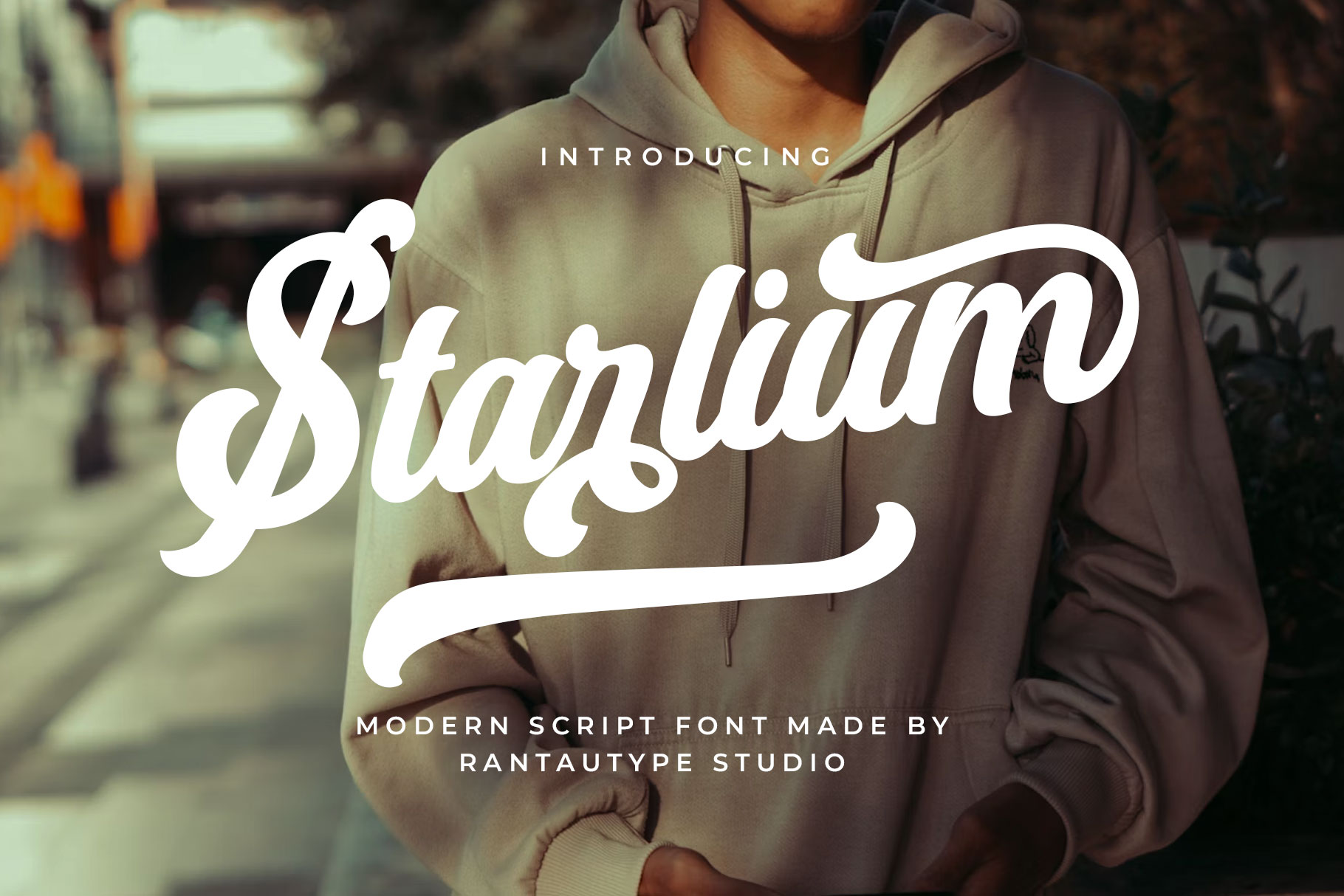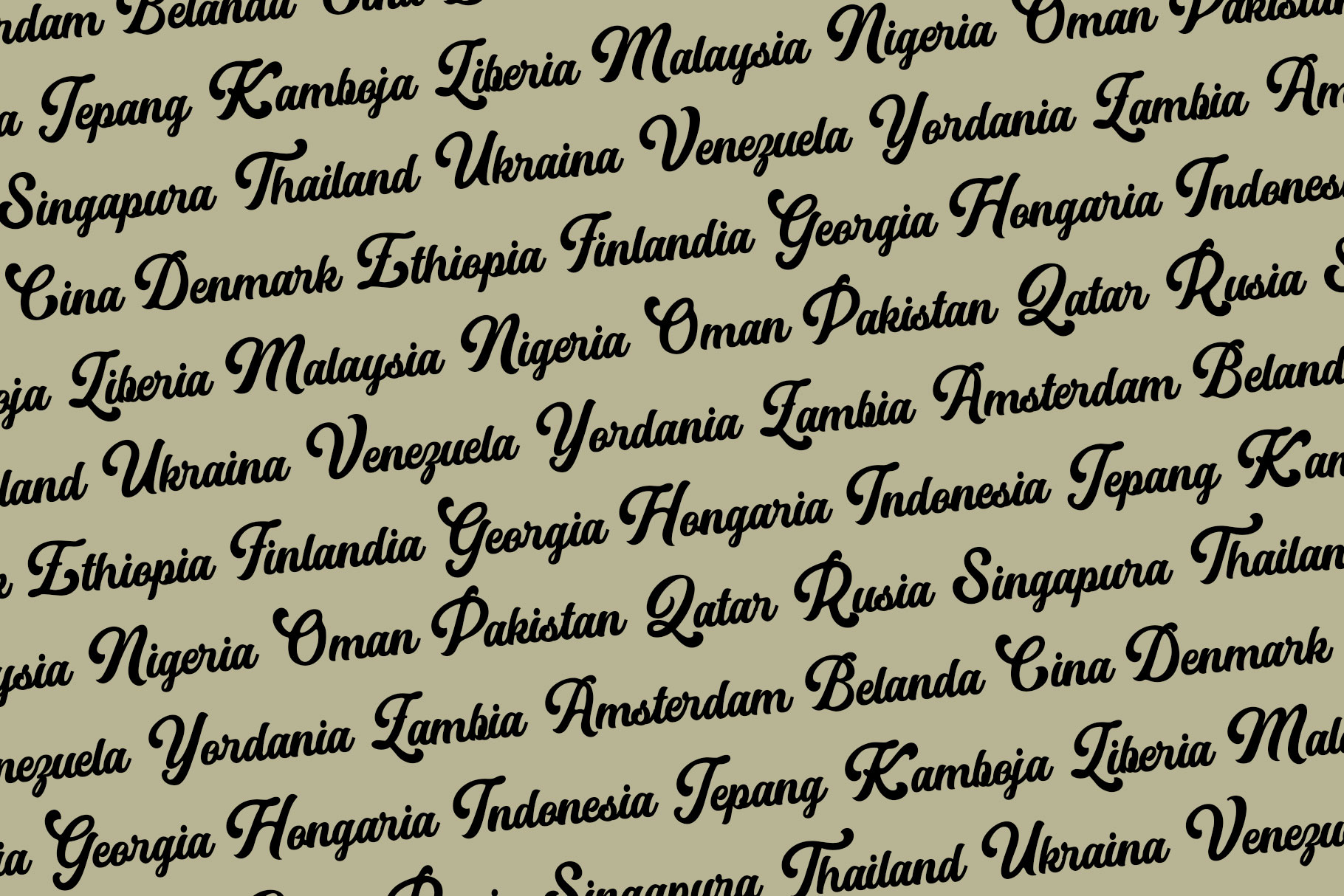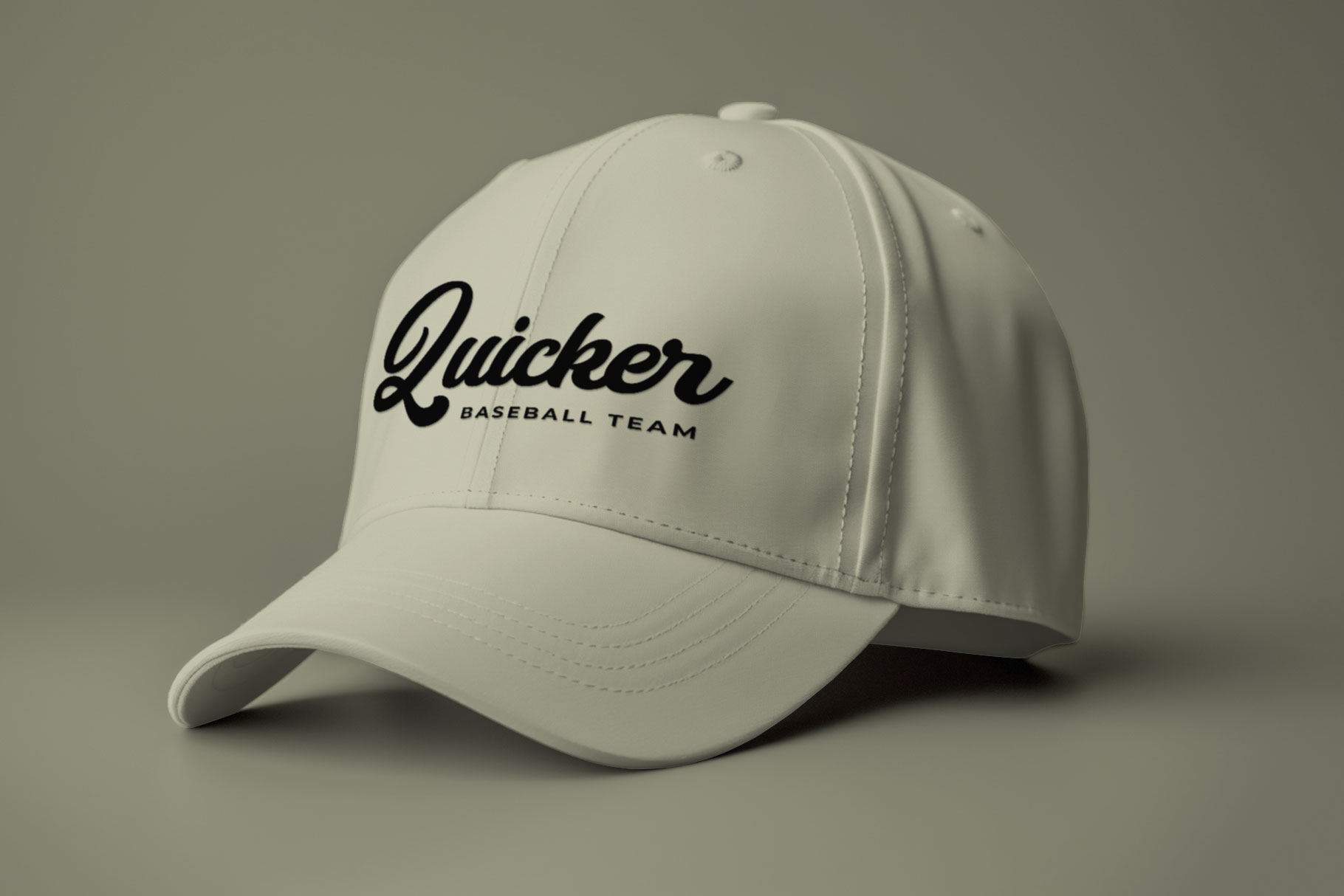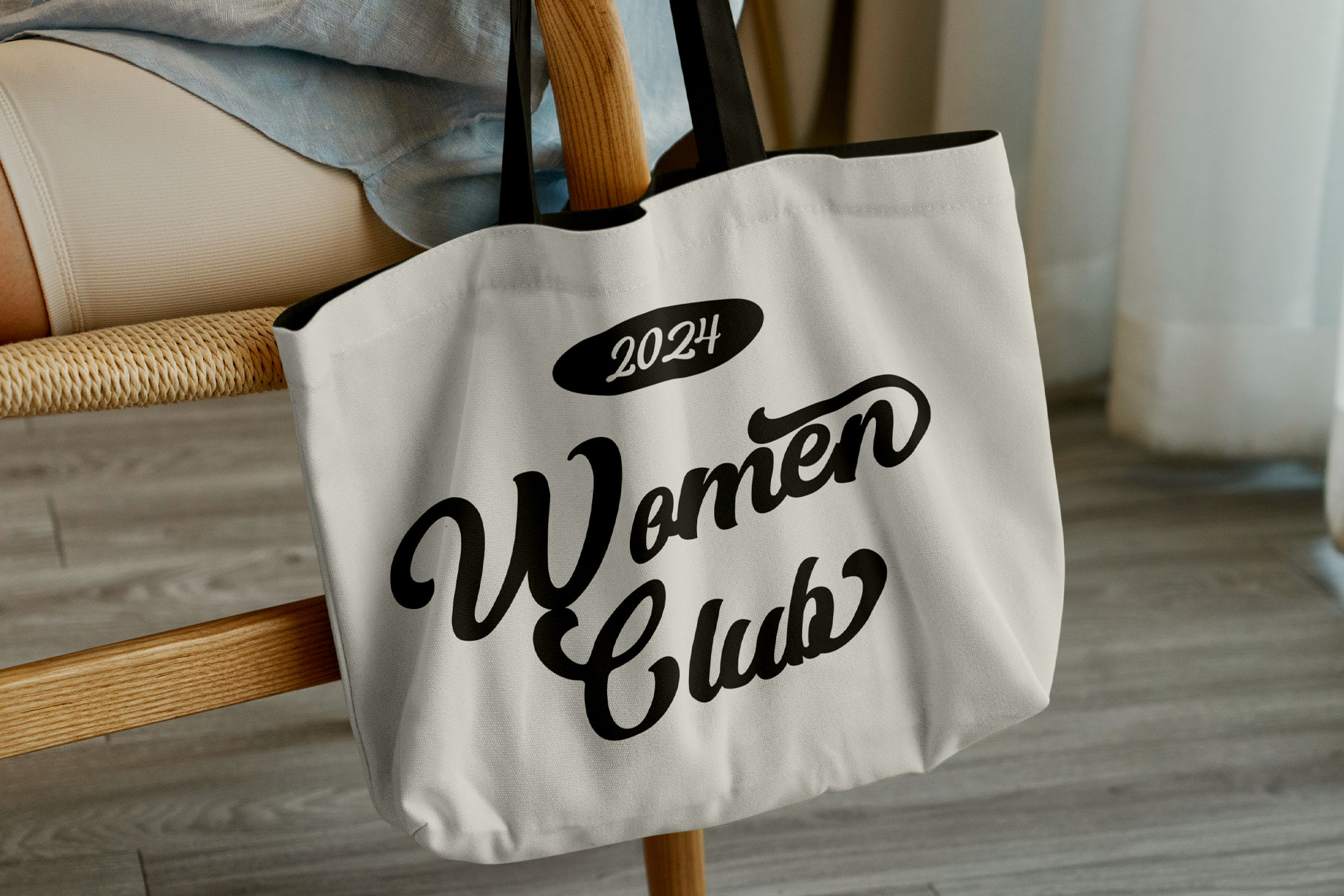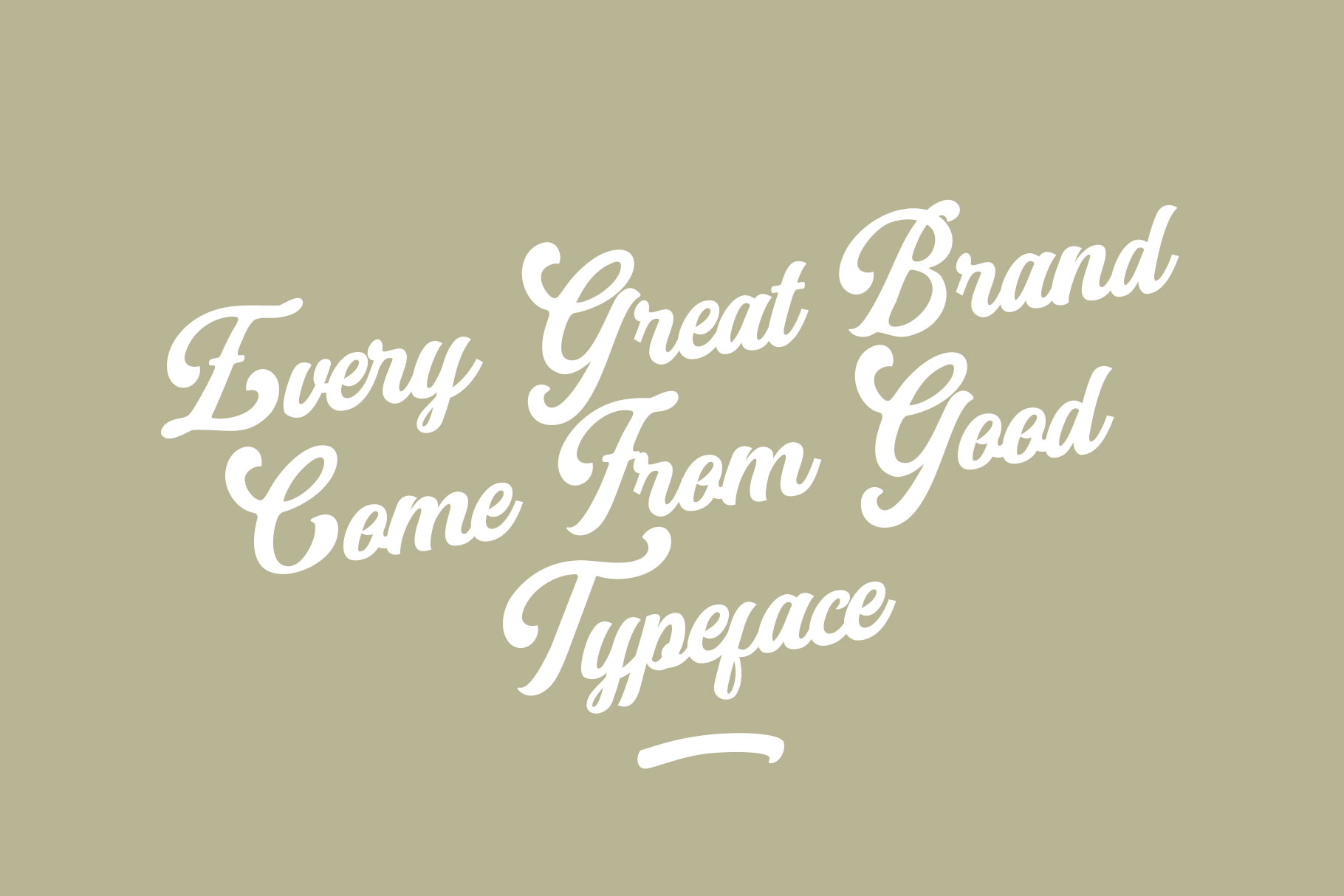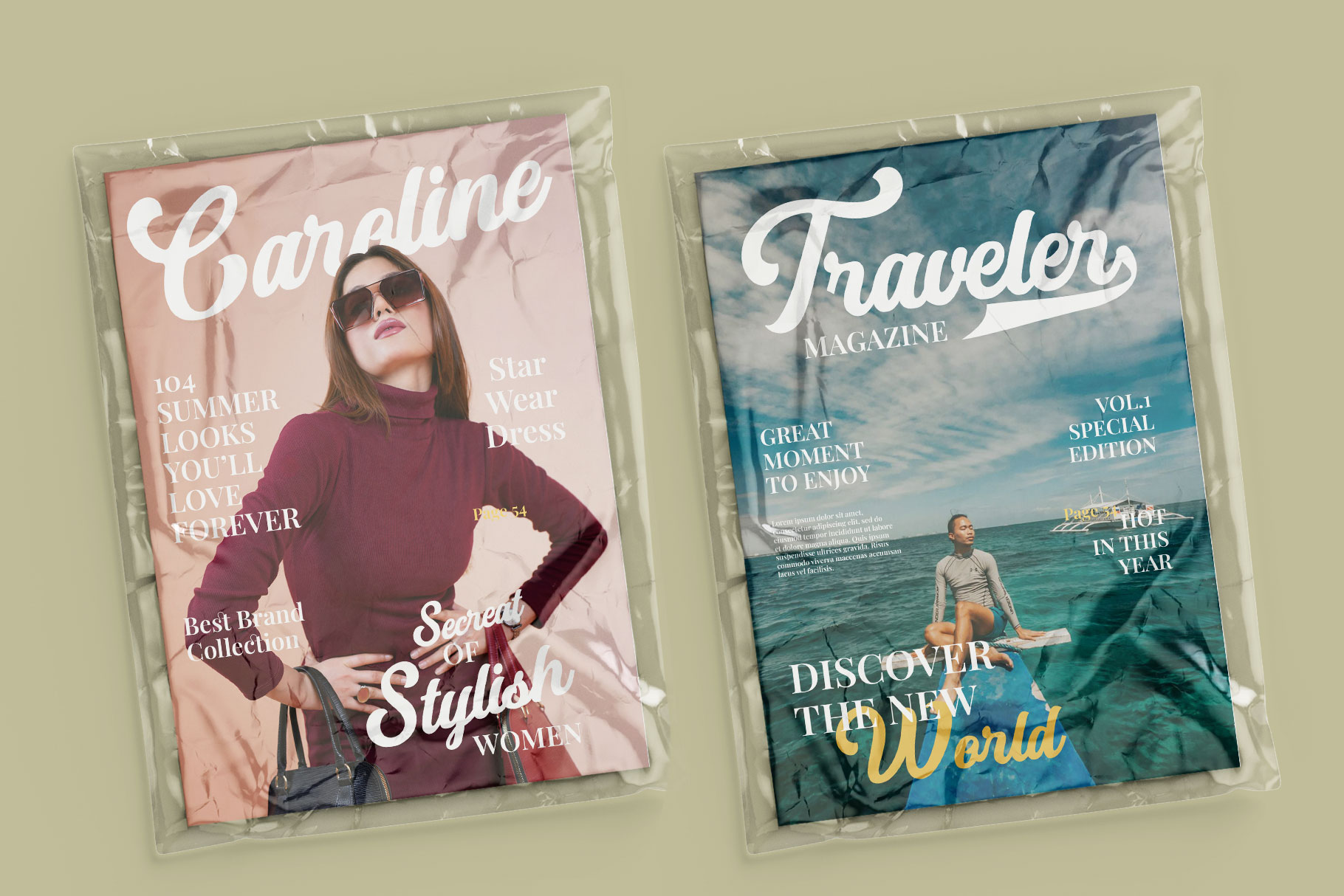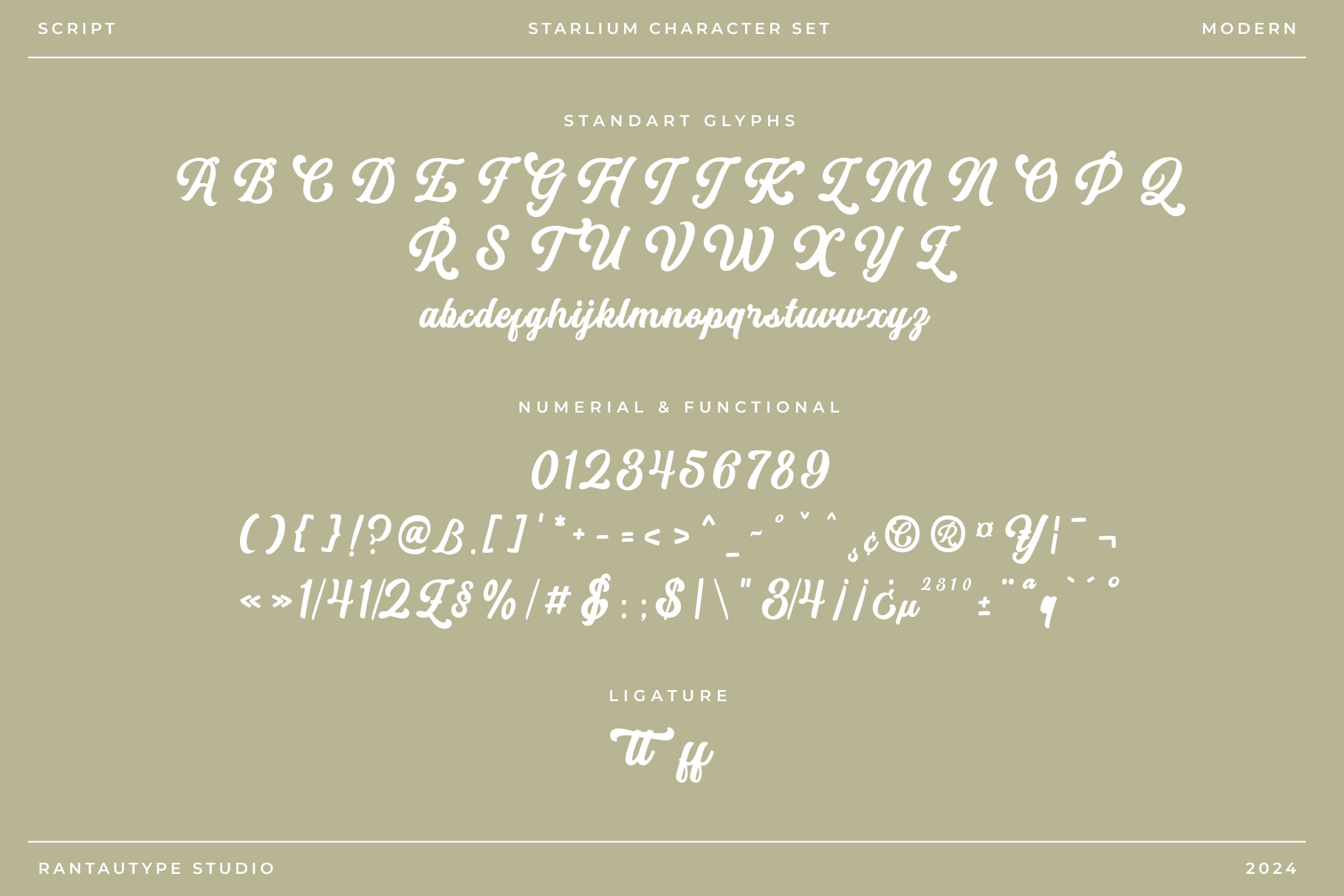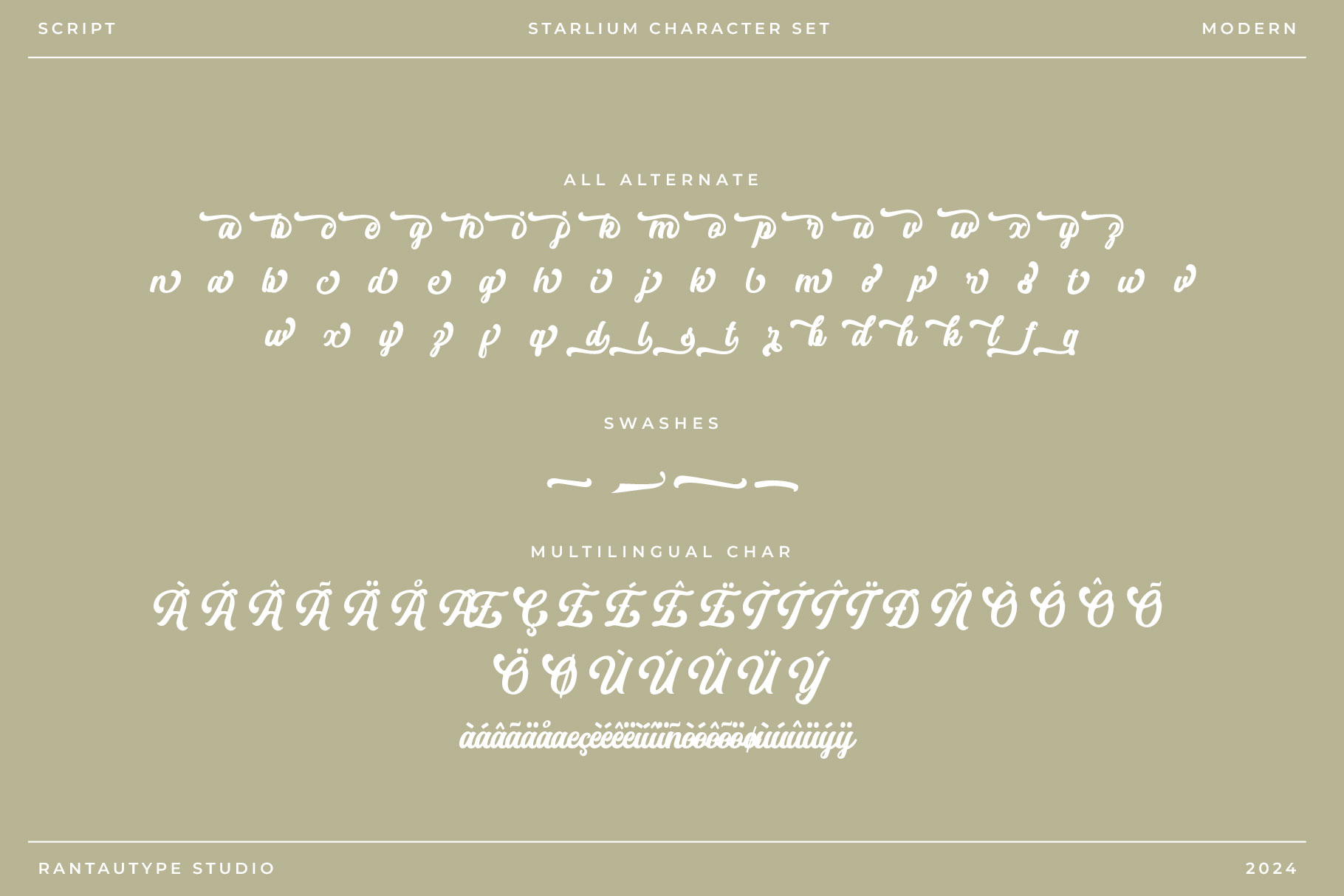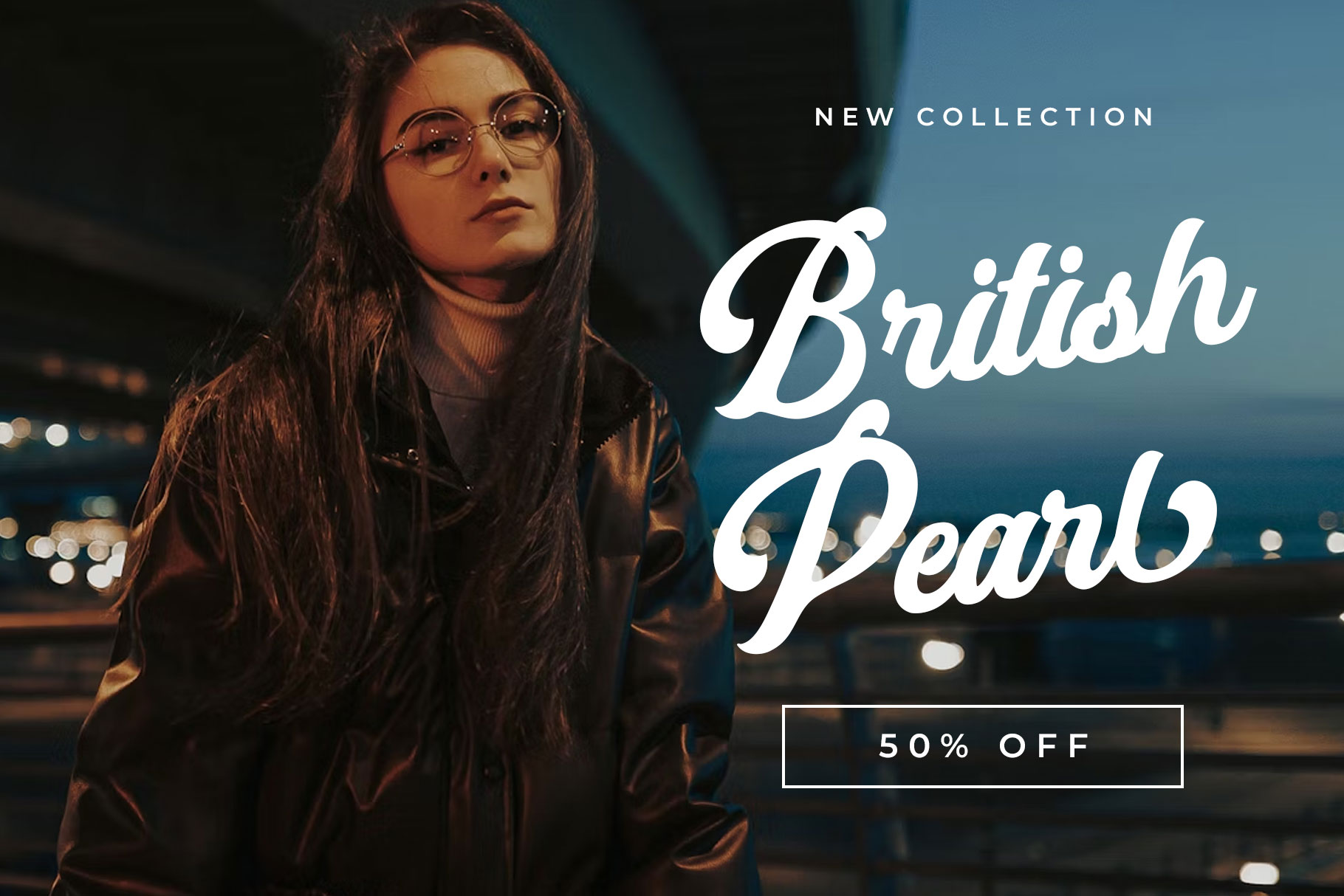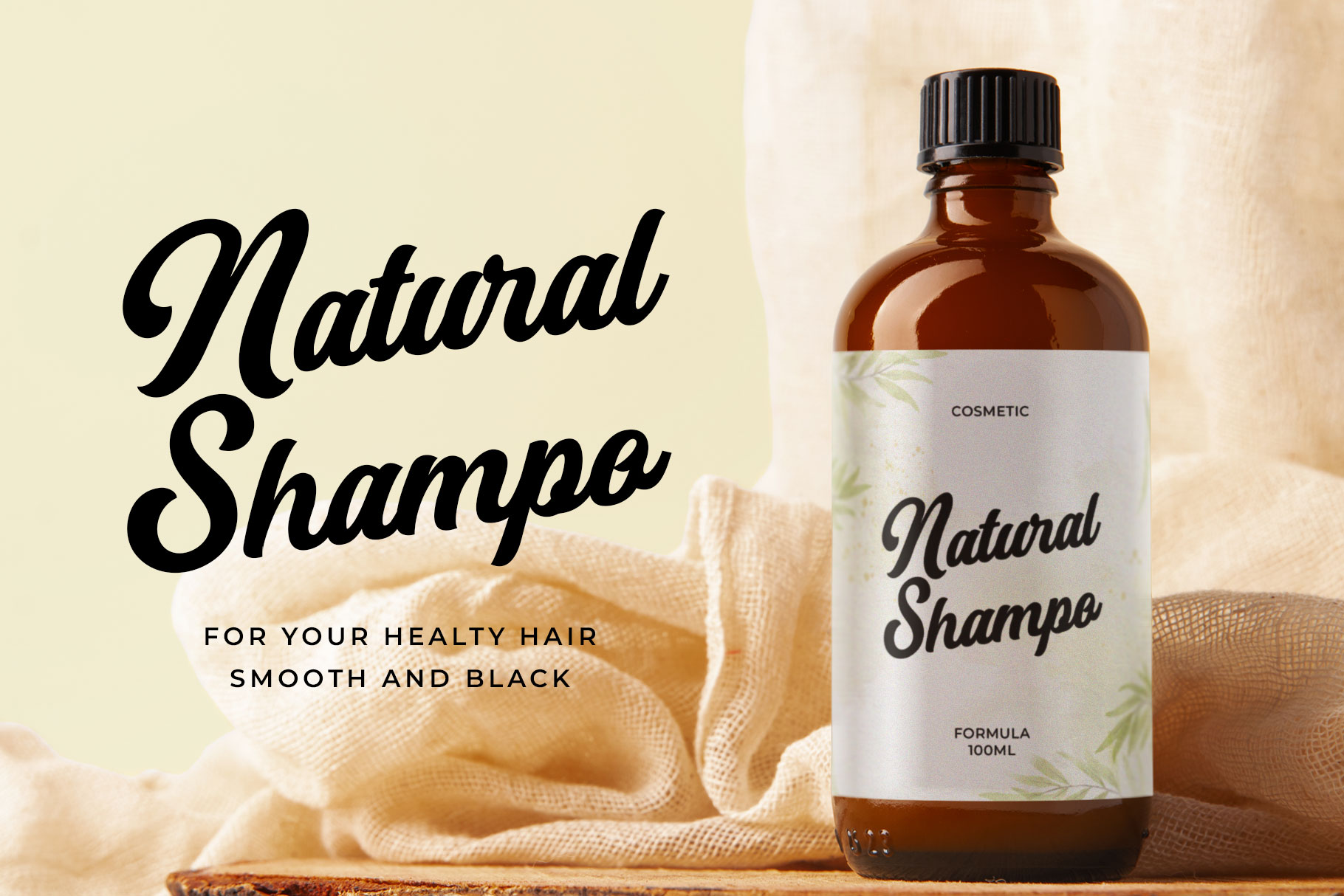
Starlium Authentic Script Font
Every professional brand come from good typeface, now starlium here to make your brand shine. Starlium is authentic script inspire by casual fashion design. Starlium come with bold and strong character make it look modern and trendy.
Starlium is a perfect choice for any creative endeavor, lifestyle design such as logos, title, watermark on photography, cover, branding, display and magazine, wedding event, corporate brand, quotes, album cover, business card, business project, company branding and more project with handwritten taste.